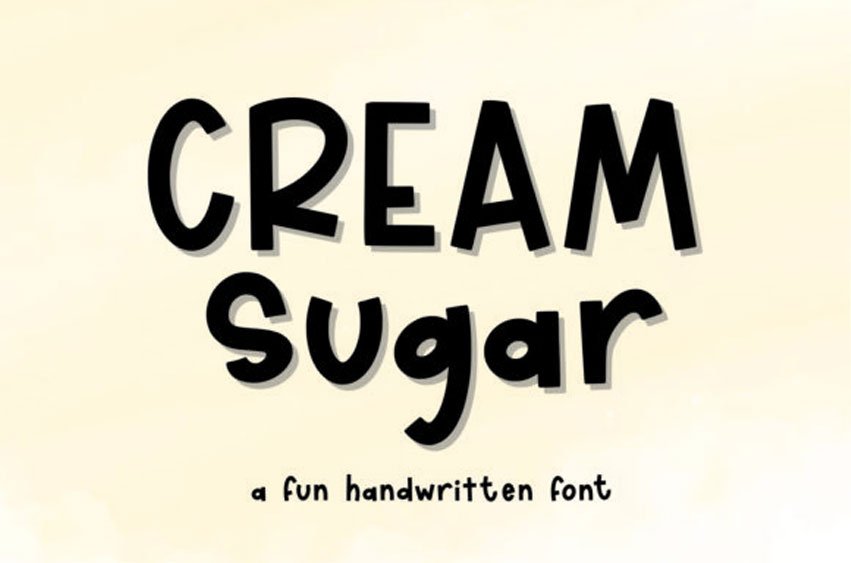
Cream Sugar Font
Cream Sugar Font is a fun and neat display font.
It is suitable for logotype, headline font, in corporate identity, brand identity, apparel industry, poster, music, movie, game, magazine, book, comic, cartoon, YouTube, Instagram, website, or any of your creative design projects.